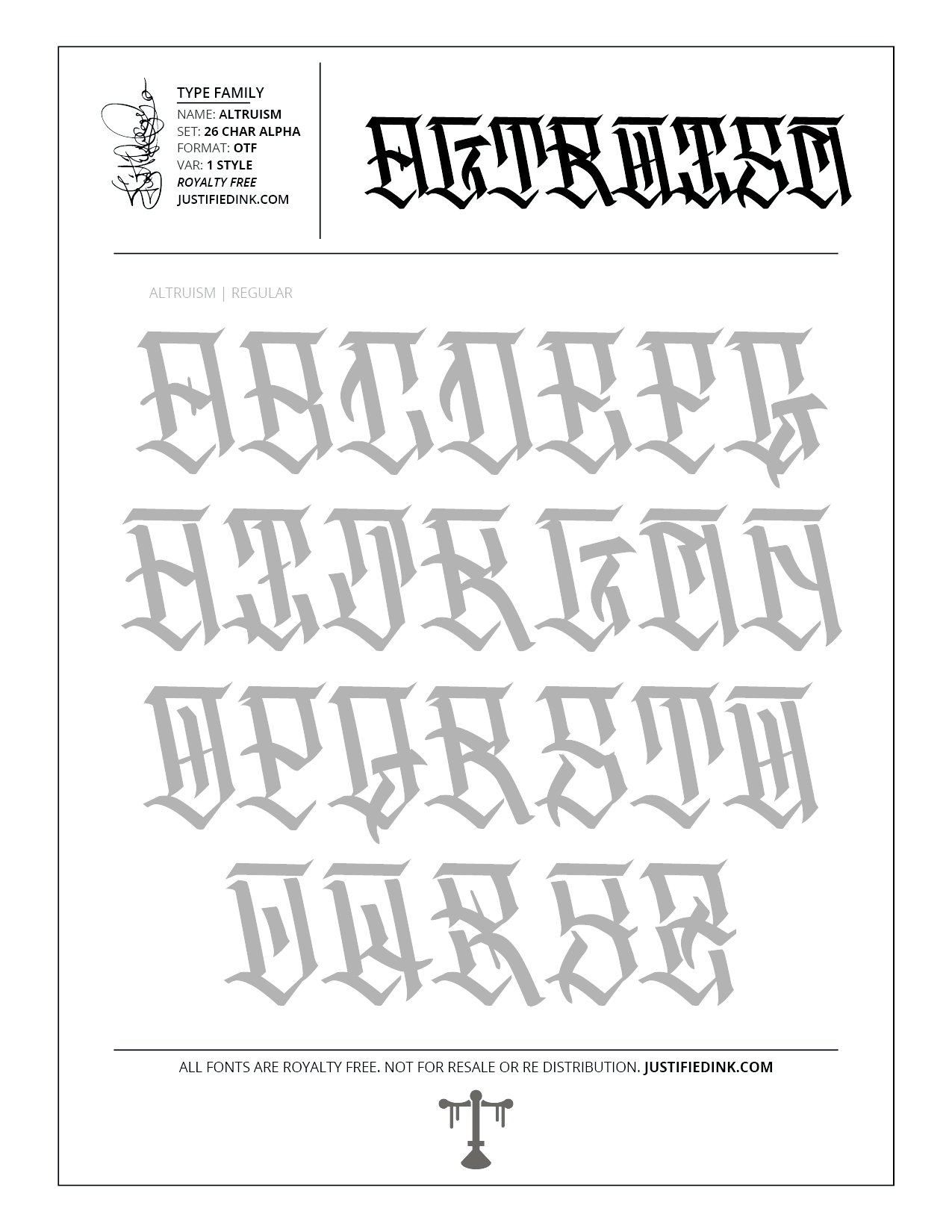
Altruism (1 style) - Custom Font by Justified Ink
NAME: Altruism
A clean-cut power forward style to remember why all this work is important. Sacrificing parts of ones-self for the greater improvement of all. Time spent in a specialized craft to bring your vision to the world, is always time well spent.
This font is part of the collection by Justified Ink, called Blackletter II. After 15+ years creating, I began to focus on building personal libraries of my work. The Blackletter II Collection was created through writing page after page, and countless hours over a 2 year span of daily practice. Each font from this collection has been hand drawn, manually vectored, and custom set as a type-able font. It comes in a full set of 26 char alpha. Each font family has variations in styles and/or non-alpha chars.